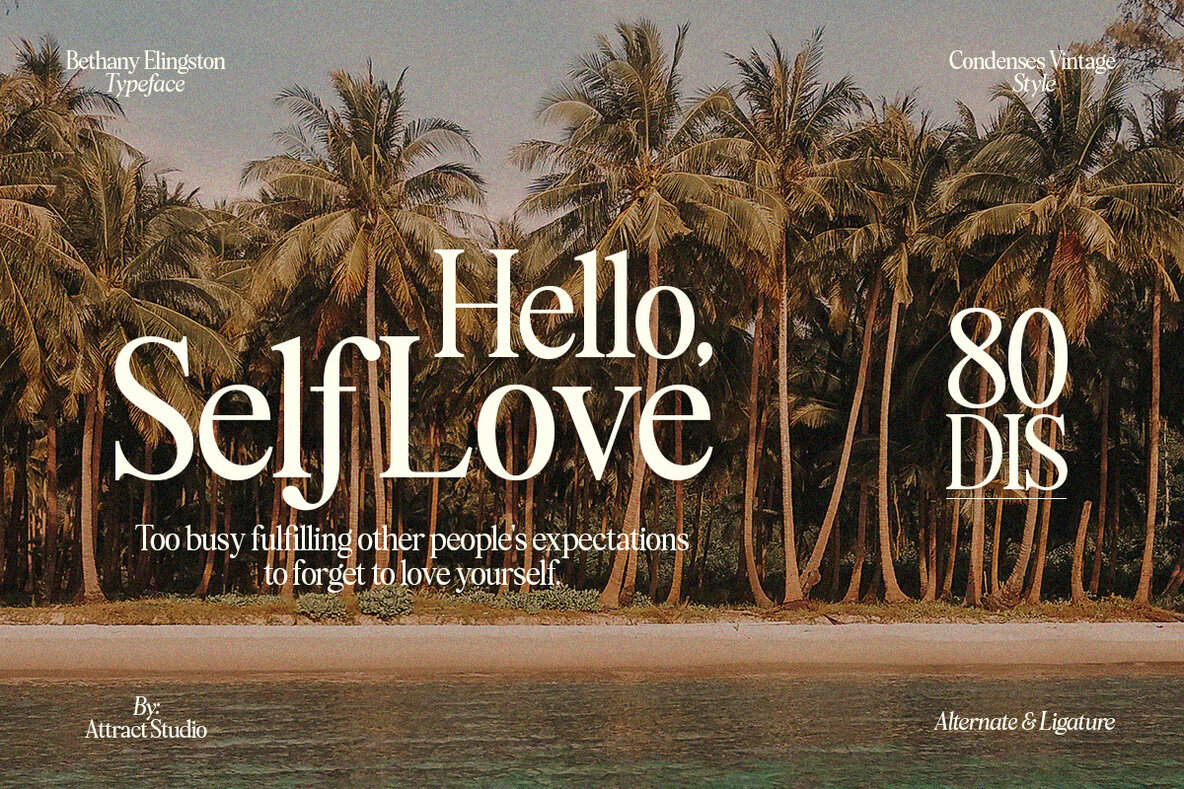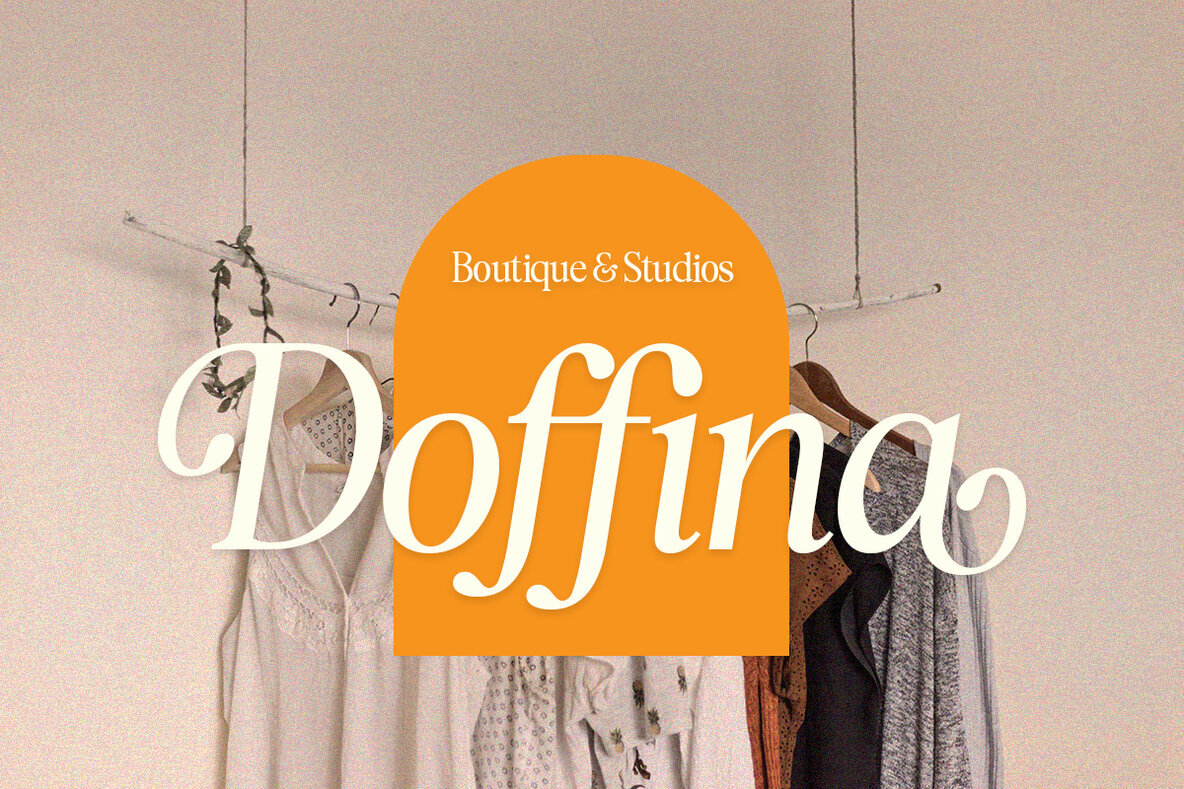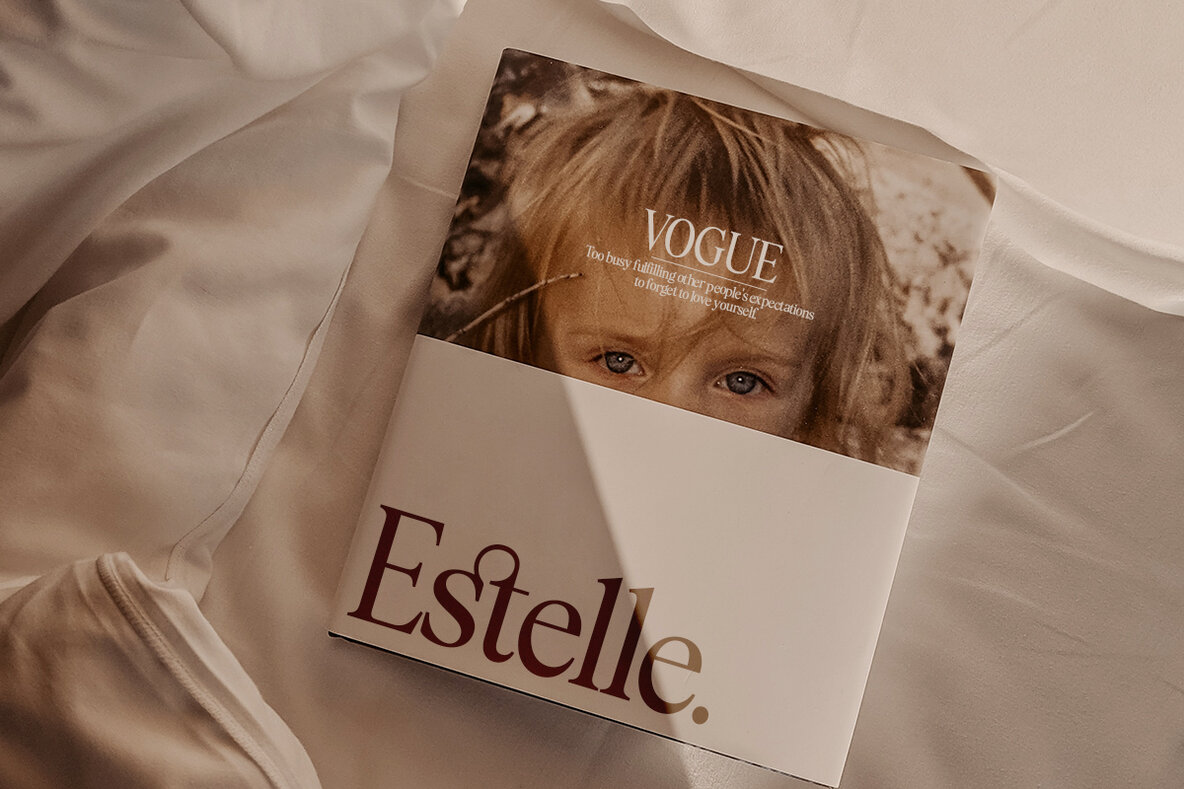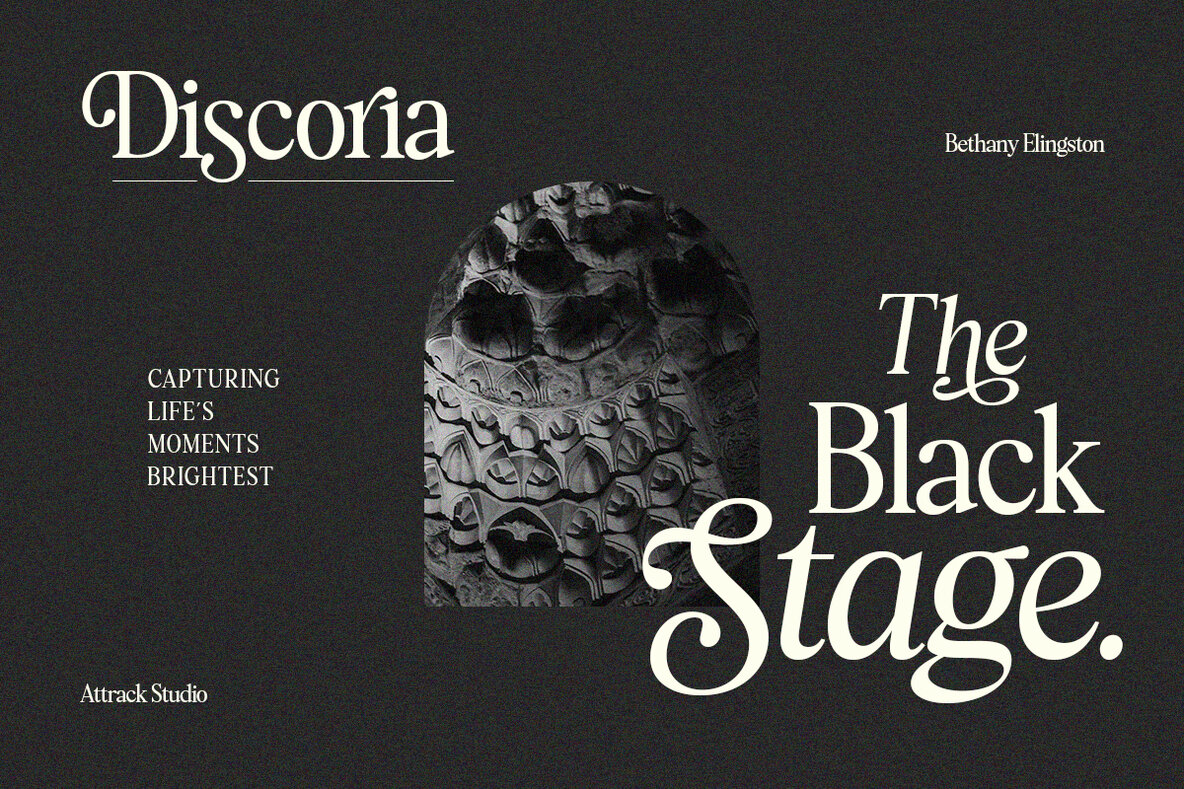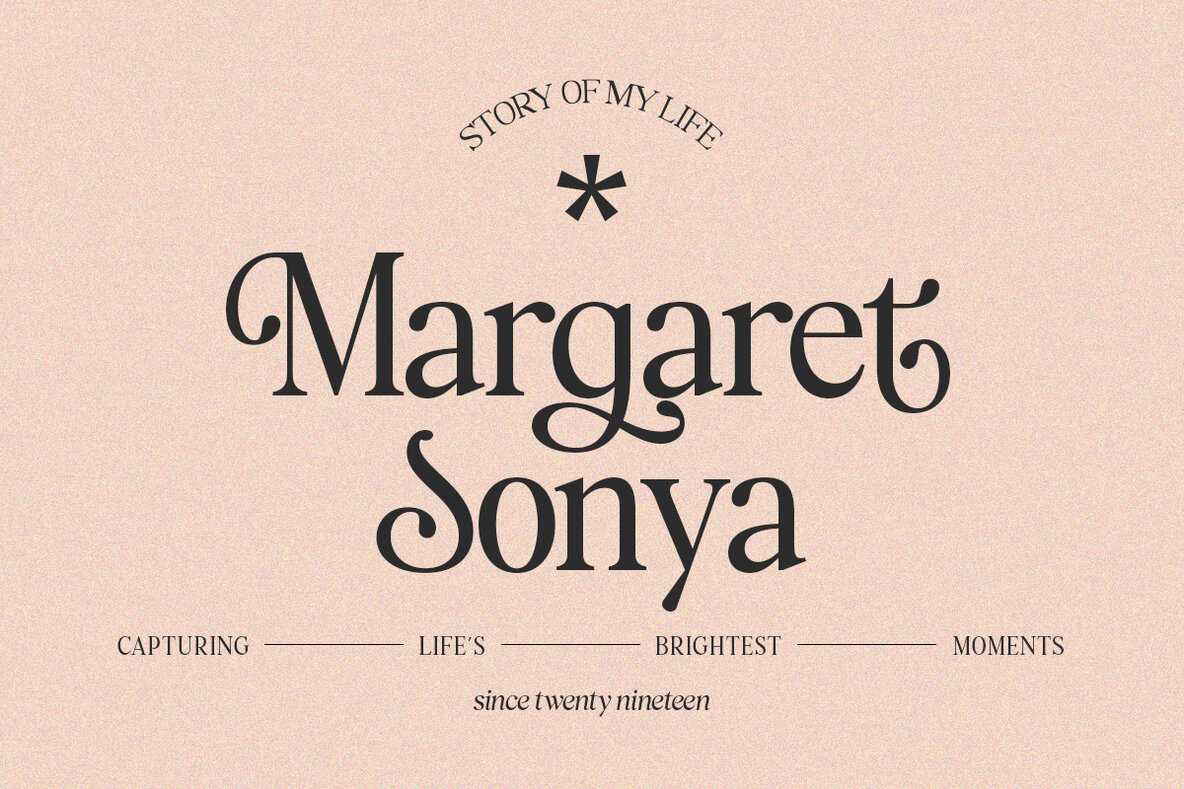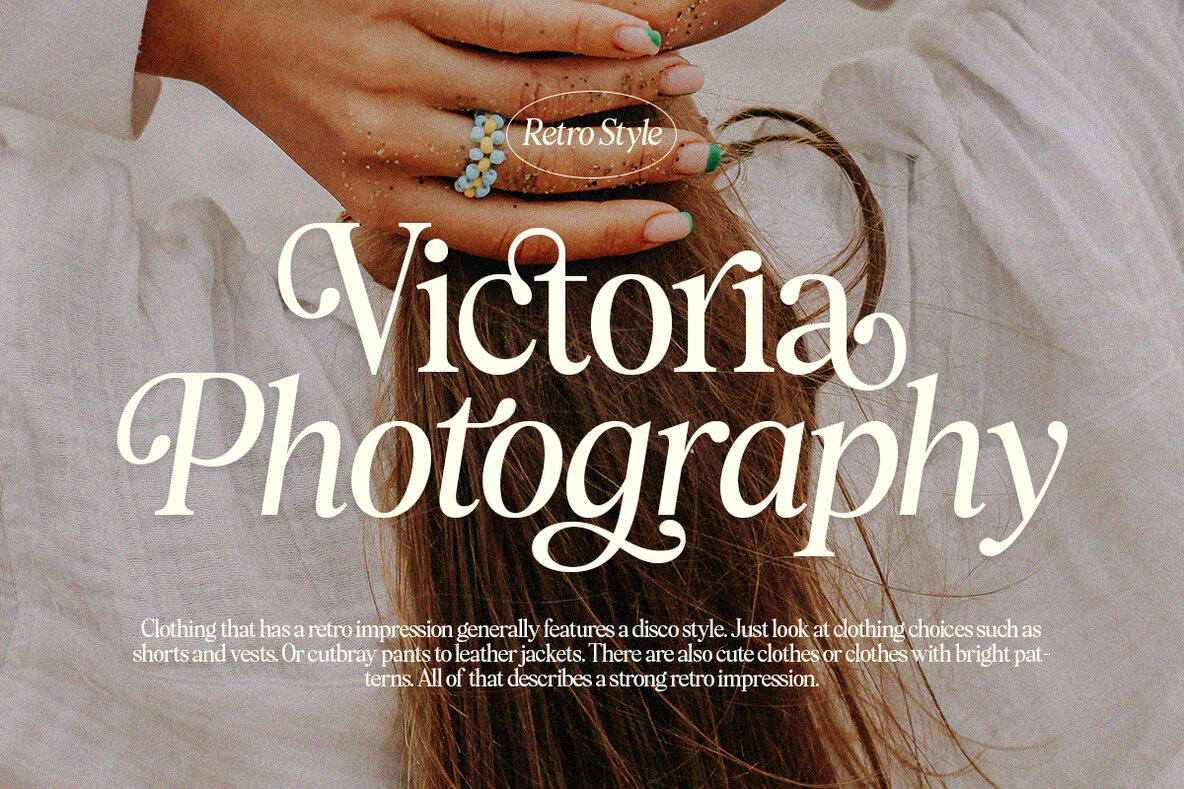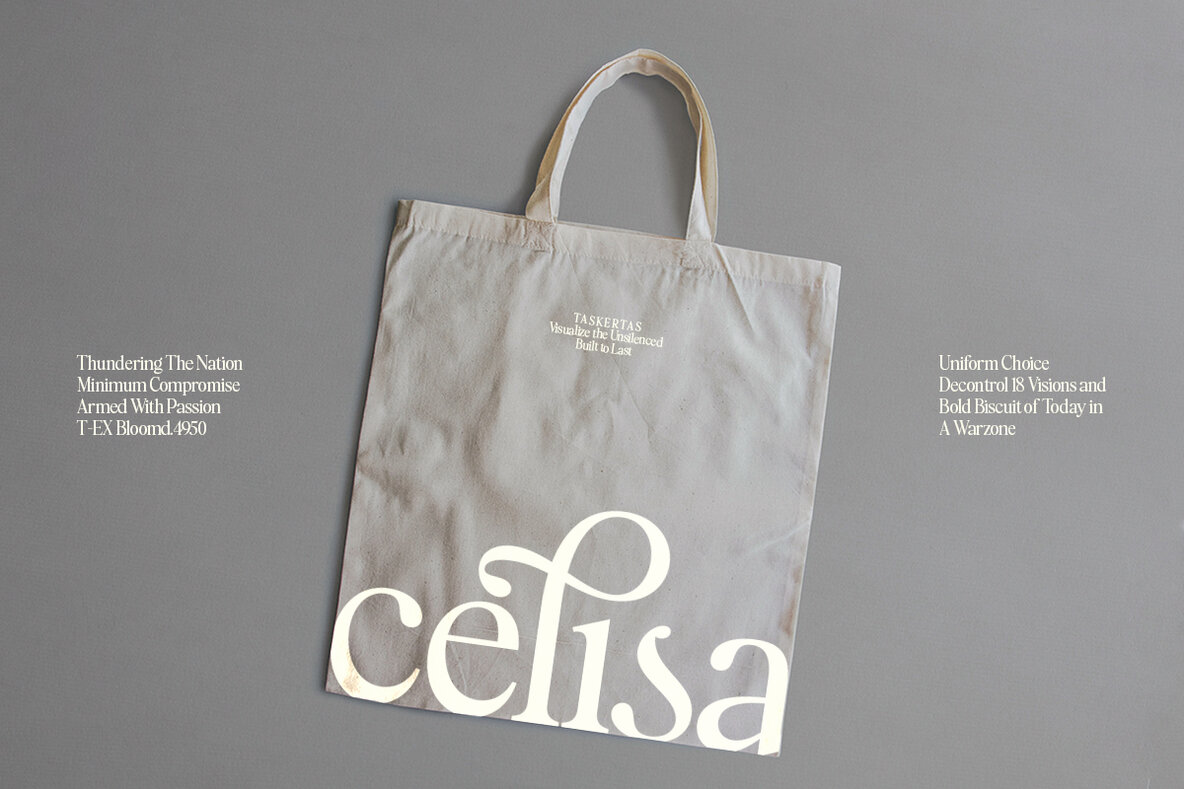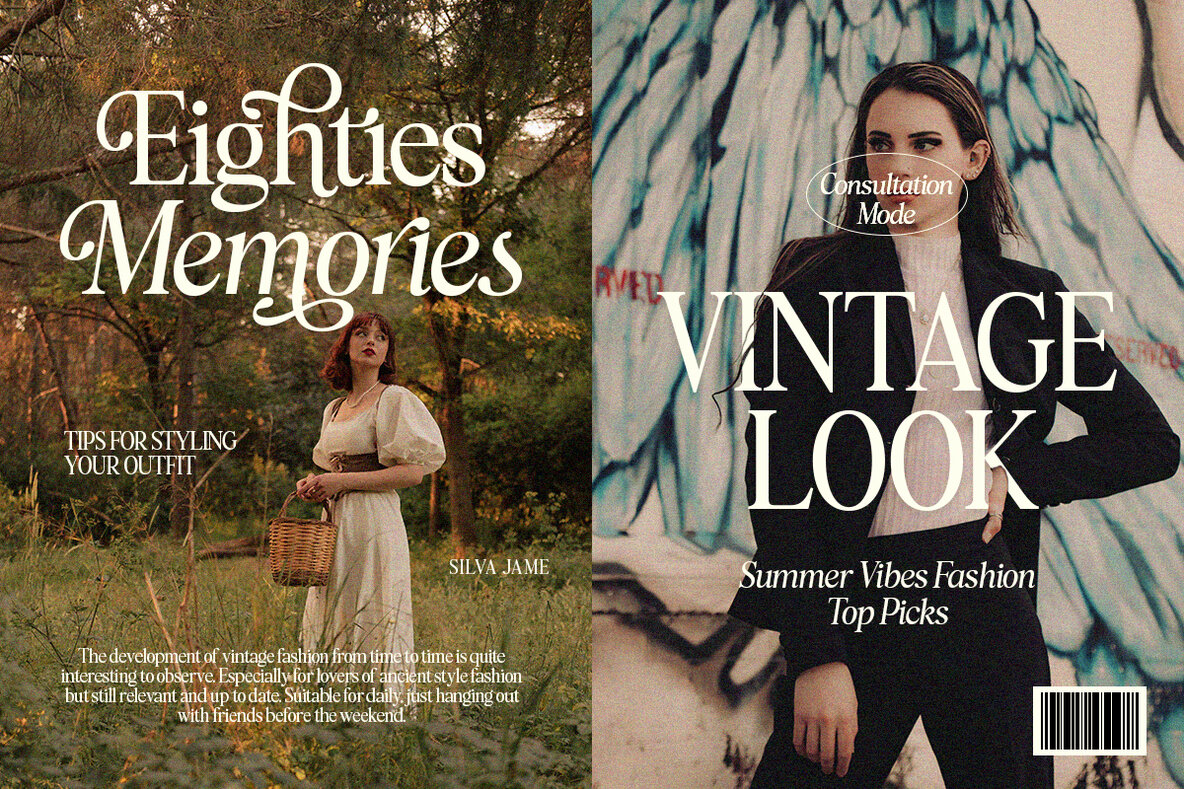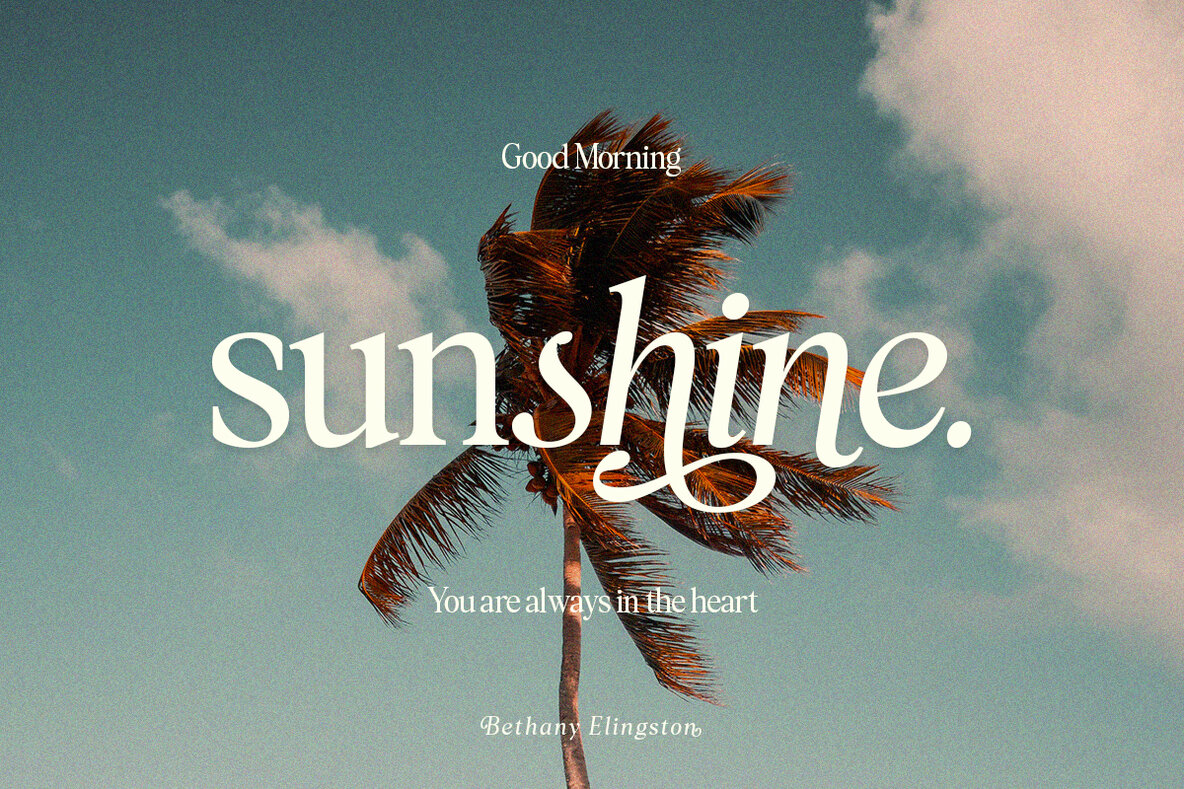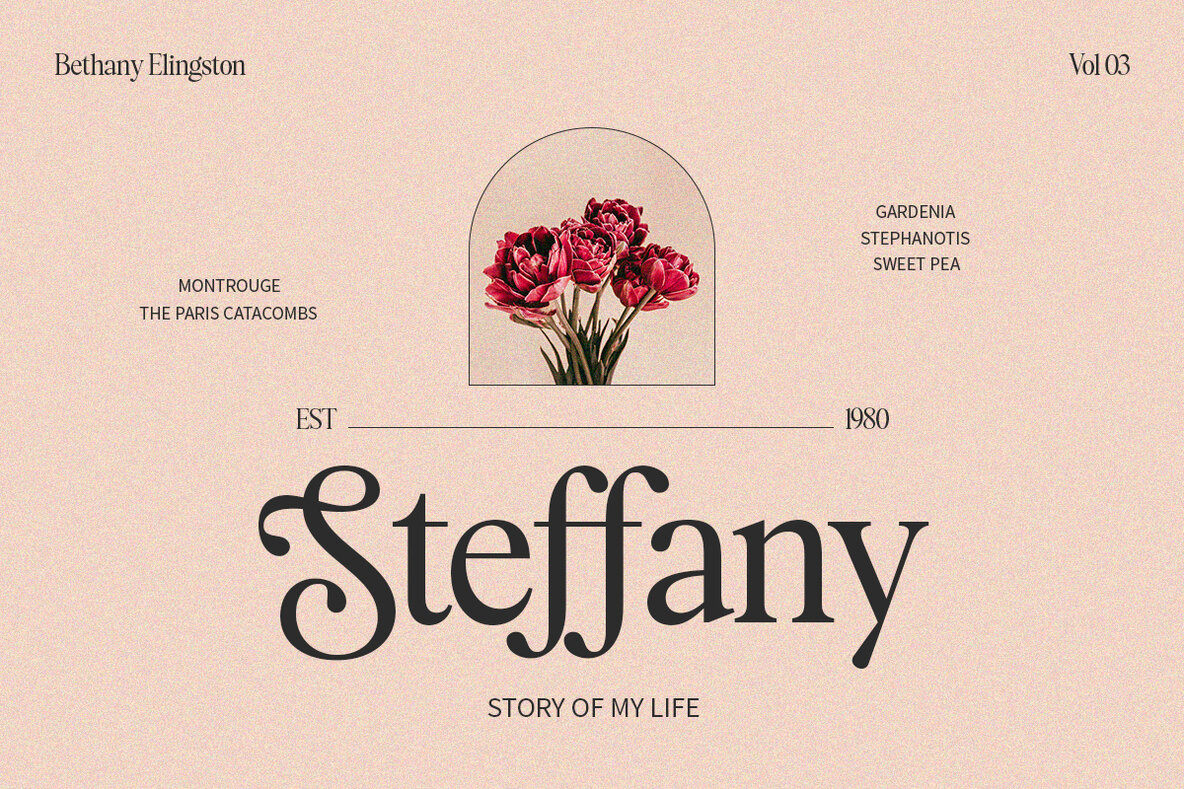
Bethany Elingston Font
Bethany Elingston embodies the elegance of old-style serifs, enriched with the utility of condensed characters. This versatile font is meticulously crafted, offering a wide range of alternatives and binders ideal for creating sophisticated labels, eye-catching signage, striking titles, and distinct logos. Its classical roots, combined with modern adaptability, make it a valuable asset for a diverse array of graphic projects.Bethany Elingston: A Classic Serif with Modern Flair